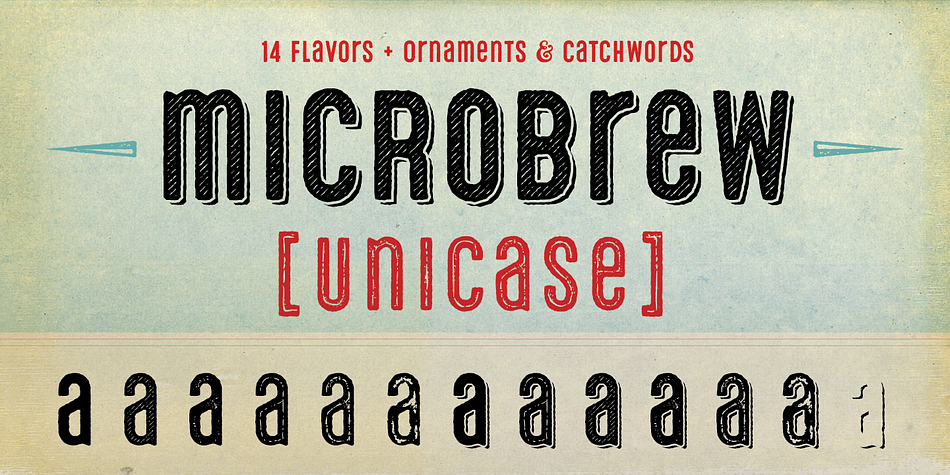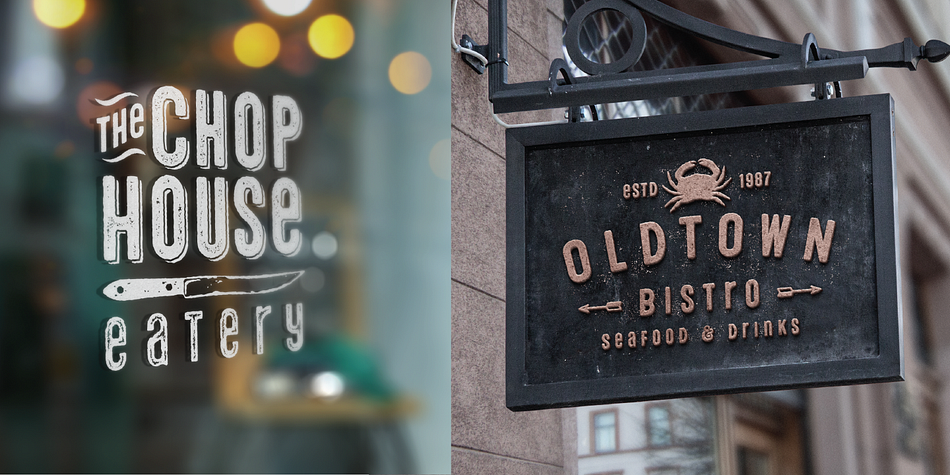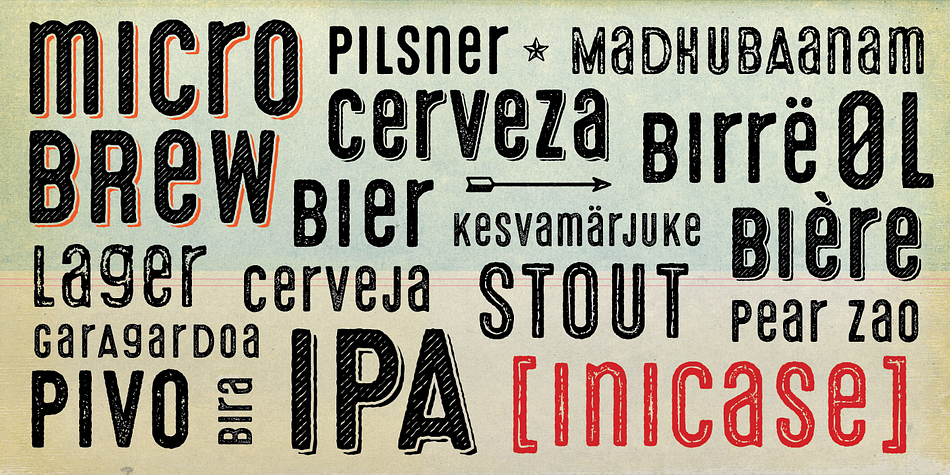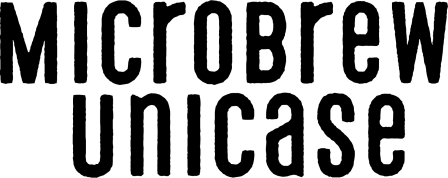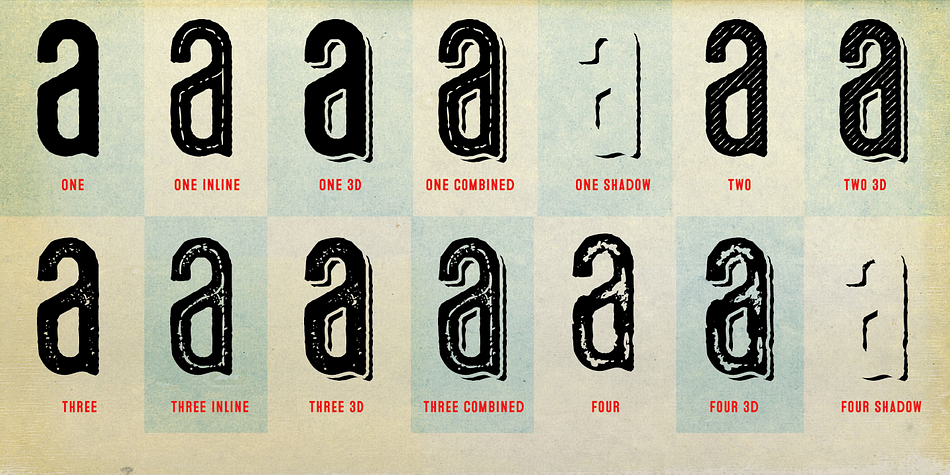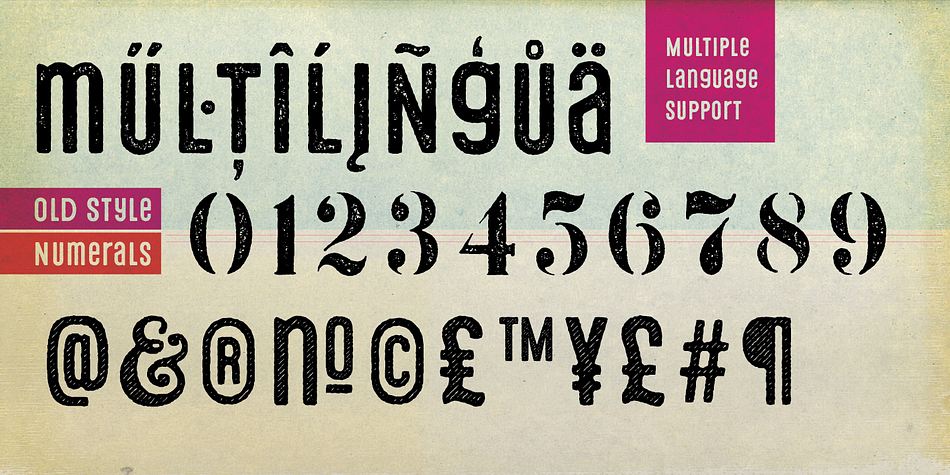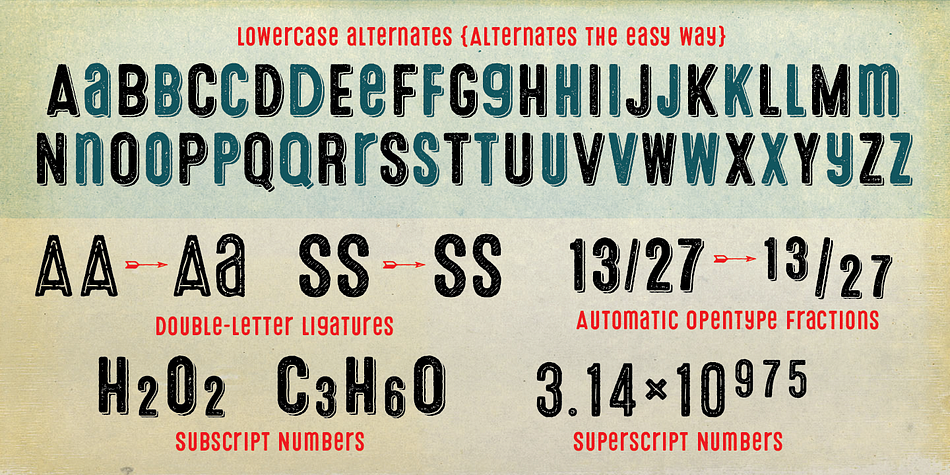
Microbrew Unicase is a dingbat, grunge and display sans font family. This typeface has sixteen styles and was published by Albatross.
Microbrew Unicase is the latest addition to the Microbrew family, a versatile retro display family. Microbrew Unicase has 14 individual styles plus a very functional set of catchwords, and a fresh and eclectic set of retro-style ornaments. Microbrew Unicase sports a nice mix between wood type poster style, and vintage letterpress. The more detailed styles work well at large sizes, and the cleaner styles add legibility at smaller sizes.
Microbrew Unicase is an all caps display font, but the lowercase act as alternates. The uppercase are all uppercase letter forms, while the lowercase is mixed. Type in all caps to be a buzz-kill. Mix upper and lowercase to have a little fun. Or type in all lowercase to have a party! (more informal)
For super-easy alternates, just mix uppercase and lowercase letters. To add to the realism, Microbrew Unicase includes double-letter ligatures. Microbrew Unicase also includes a set of extremely intentional and eclectic ornaments and symbols. Designed to give a vintage feel, the ornaments and symbols compliment Microbrew nicely to round off the family. The ornaments also include old style numbers, and lots of retro symbols.
Don’t let the name fool you, Microbrew Unicase is very versatile and works great for almost any subject matter, including weddings, birthdays, restaurants, coffee shops, music, and many more.
Opentype features include automatic fractions, subscript numbers, superscript numbers, and double-letter ligatures.